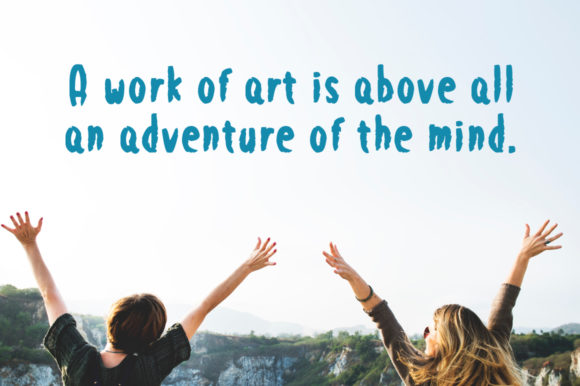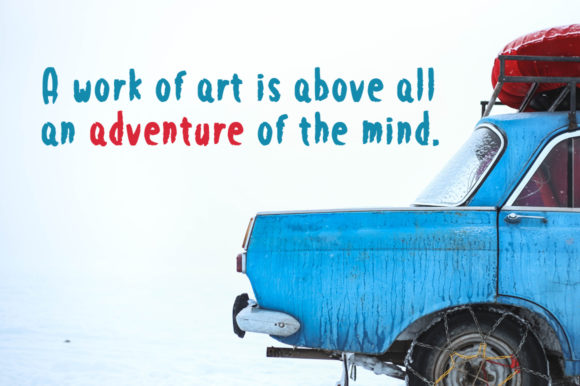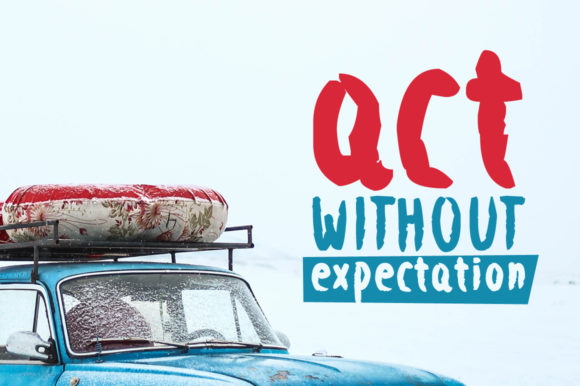
The Ultimate Companion for Your Creative Journeys
Have you ever stared at a blank canvas, waiting for inspiration to strike? The silence can be deafening, but it’s often in these moments of quiet contemplation that the best ideas emerge. For designers, the search for the perfect font can be a daunting task, but what if I told you that the solution lies in the Adventure Away Font? This stunning new brush font is designed to transport your designs to new and exciting realms.
Whether you’re crafting stationery, logos, or website headers, the Adventure Away Font is the perfect companion for your creative journeys. Its versatility and charm make it an invaluable asset for designers looking to add a touch of personality to their work.
Adventure Away Font Key Features
- Font Family: Adventure Away Font offers a unique, handwritten style with multiple font weights, from Light to Bold.
- Character Count: The font contains over 700 glyphs, including Latin, Cyrillic, and Greek alphabets, making it suitable for multilingual designs.
- Size: The font is designed to be highly legible at various sizes, from 12pt to 72pt, and is ideal for use in signage, posters, and other display typography.
- Resolution: Optimized for high-resolution displays, the font is suitable for use in digital designs, including web, mobile, and print media.
- Unique Characteristics: The font features a distinctive, hand-drawn feel with varying line widths, making it perfect for adding a touch of personality to designs.
Adventure Away Font Review
Overall, I was quite impressed with the “Adventure Away Font”. It’s a unique and playful font that’s perfect for outdoor enthusiasts and adventure-seekers.
- The font’s bold and adventurous feel is perfect for headings and titles.
- The font’s bold lines and curves give it a fun and energetic vibe.
- The font is highly legible, even at smaller font sizes.
- The font comes in a variety of weights and styles, making it highly customizable.
- The font may be too playful for more formal or corporate designs.
- The font’s unique style may not be suitable for all audiences, particularly those who prefer more traditional or minimalist designs.
- The font may not be as versatile as other fonts, particularly in terms of its use in body text.
In terms of overall impression, I would say that the “Adventure Away Font” is a great choice for designers who are looking for a fun and adventurous font. However, it may not be the best choice for more formal or traditional designs. Overall, I would give the font 4 out of 5 stars.
To get the most out of the Adventure Away font, try combining it with bold or italic styles to add emphasis. You can also use it in conjunction with other fonts to create a unique and eye-catching design.
The Adventure Away font is perfect for outdoor-themed designs, such as:
- Travel brochures
- Adventure tourism websites
- Outdoor gear marketing materials